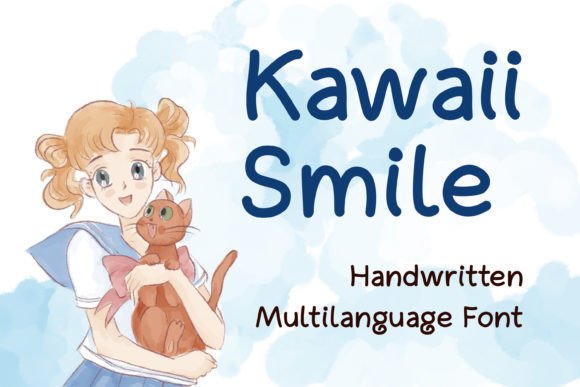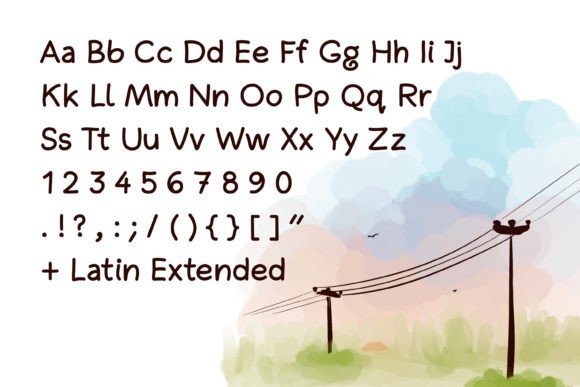
Kawaii Smile Font
About Kawaii Smile Font
Kawaii Smile Font is a charming handwritten typeface full of warmth and character. With its whimsical curves and slightly quirky strokes, this font instantly injects joy into your designs. Its cheerful personality and hand-crafted feel make it a great option for adding friendliness and fun to your work.
Designed with creativity in mind, Kawaii Smile Font brings a unique look that feels both casual and expressive. The handwritten flow and bouncy baseline create a playful rhythm, making it perfect for projects that need a personal and approachable style.
Ideal Uses for Kawaii Smile Font
Kawaii Smile Font is versatile and works wonderfully across a variety of projects:
• 🎨 Craft Designs – Great for printable art, DIY projects, and kids’ crafts
• 💬 Greeting Cards – Make cheerful messages stand out
• 📱 Social Media Graphics – Add positivity to your Instagram, TikTok, or Pinterest posts
• 🛍️ Product Packaging – Especially fitting for handmade, food, or kawaii-themed products
• 🏷️ Stickers & Labels – Bring playful charm to tags or planners
• 🖍️ Educational Materials – Perfect for worksheets and posters for kids
• ✅ Whimsical Style – Each letter has a unique, cheerful shape
• ✅ Smooth Handwritten Flow – Natural curves and a bouncy baseline
• ✅ Cute and Friendly Aesthetic – Lighthearted feel for playful designs